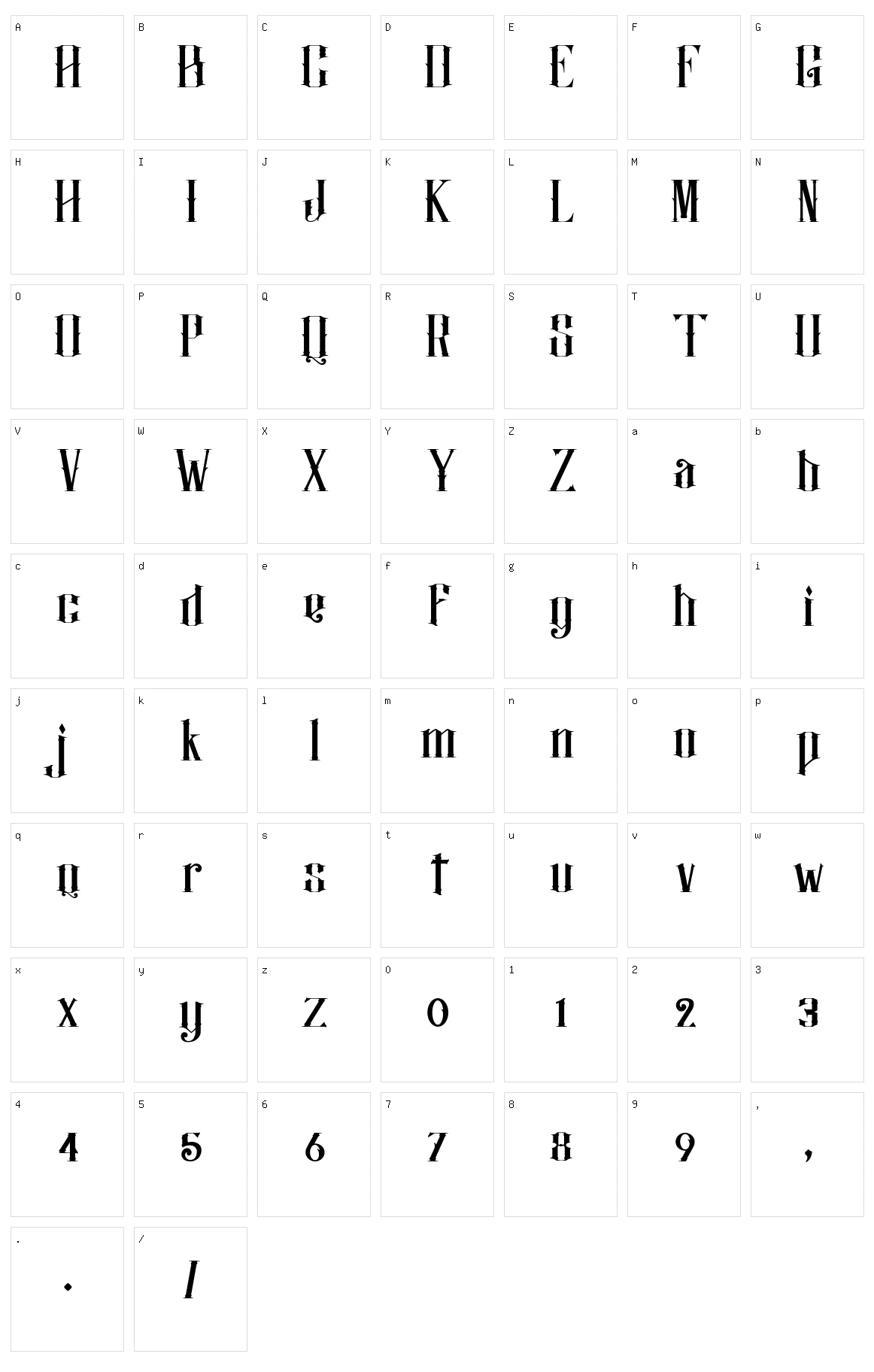
Justify
Designed by: madeDeduk
Justify Fonts Package is a typeface inspired in tattoo letters! Justify have six style plus ornament, Justify perfect for all your designs project.
Feature
UPPERCASE
lowercase
Number & Symbol
International Glyps
Alternative UPPERCASE (ss01-ss02-ss03)
Alternative lowercase (alt01-alt02-alt03)
Ligature